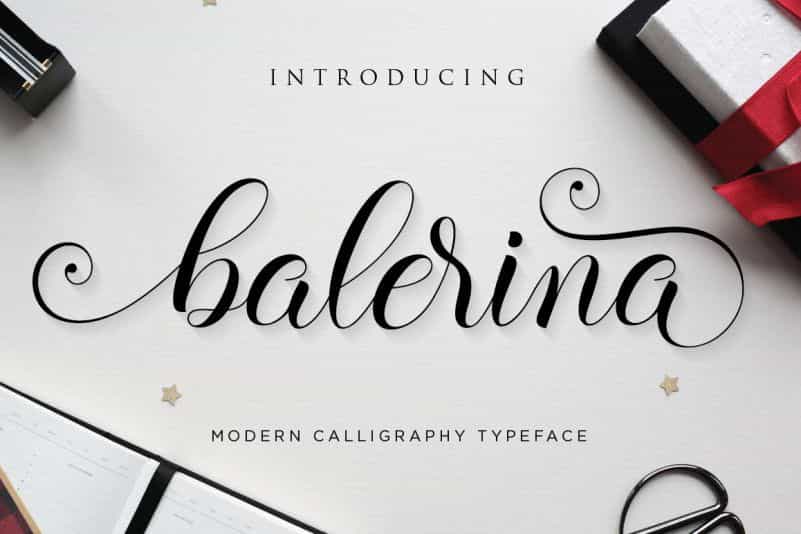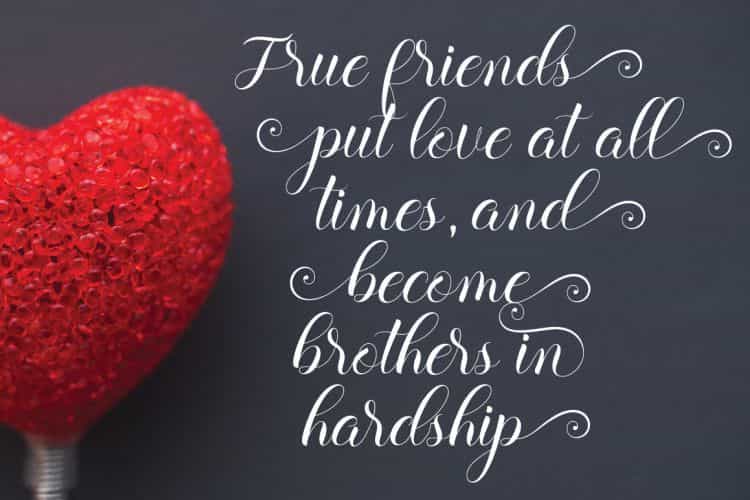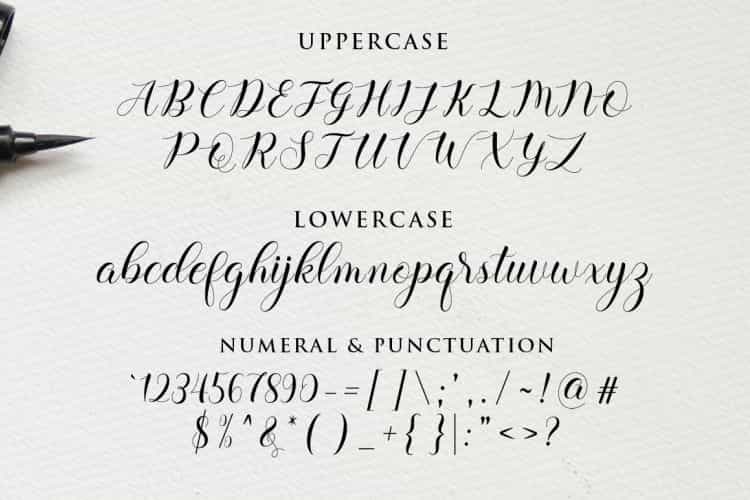
Balerina Script A new beautiful script font. The style is a perfect mix of modern and traditional calligraphy! This font is relaxed and nice with swashes. It’s created and published by fanastudio for those who have a passion for fashion. A stylish Font Style. This beautiful script font gives your personality to your newest art piece with sophistication, style and contemporary flair.